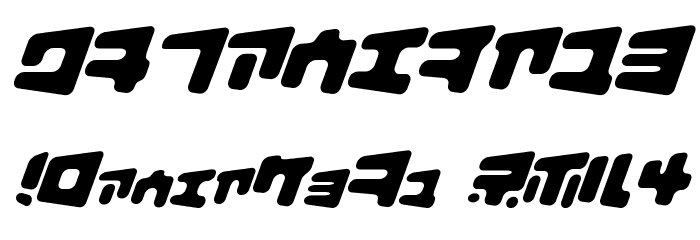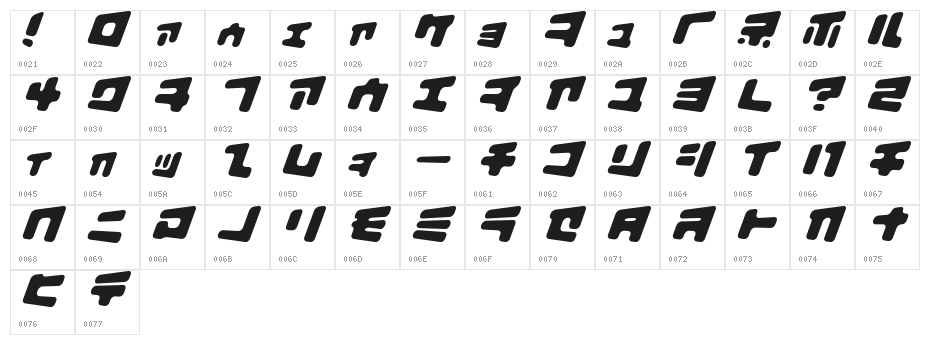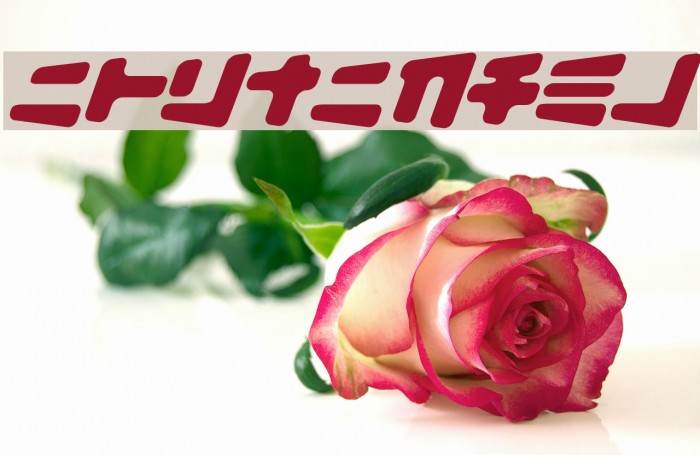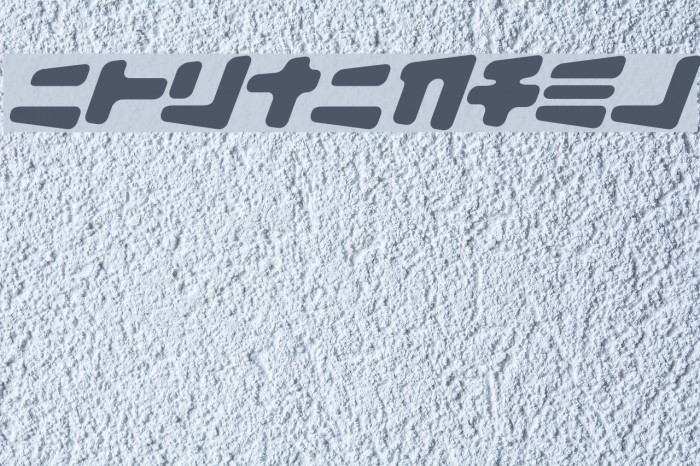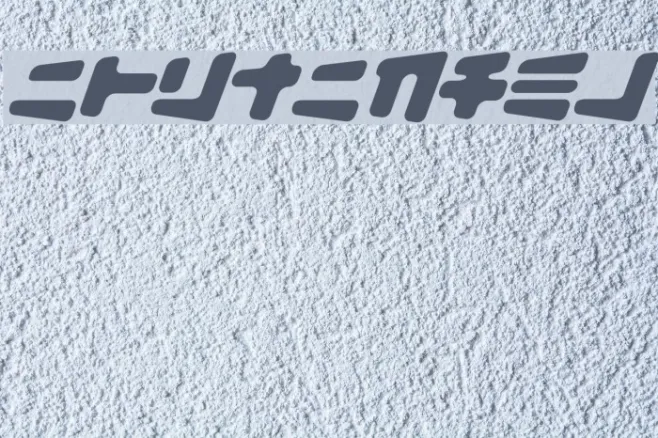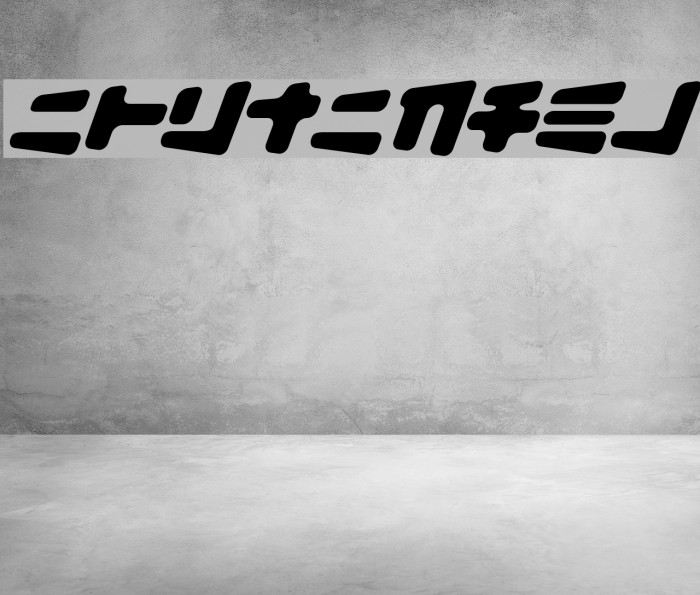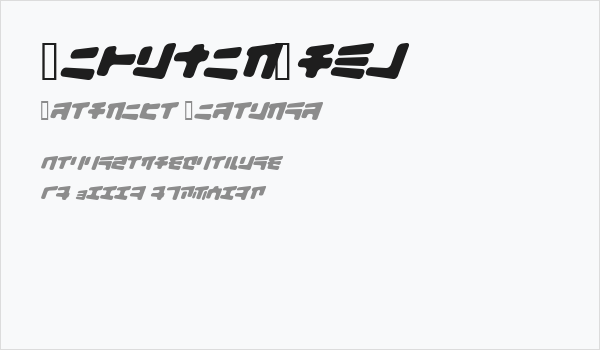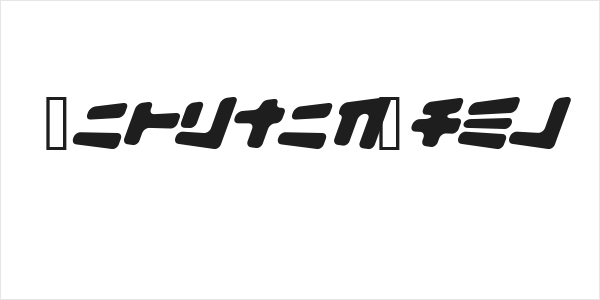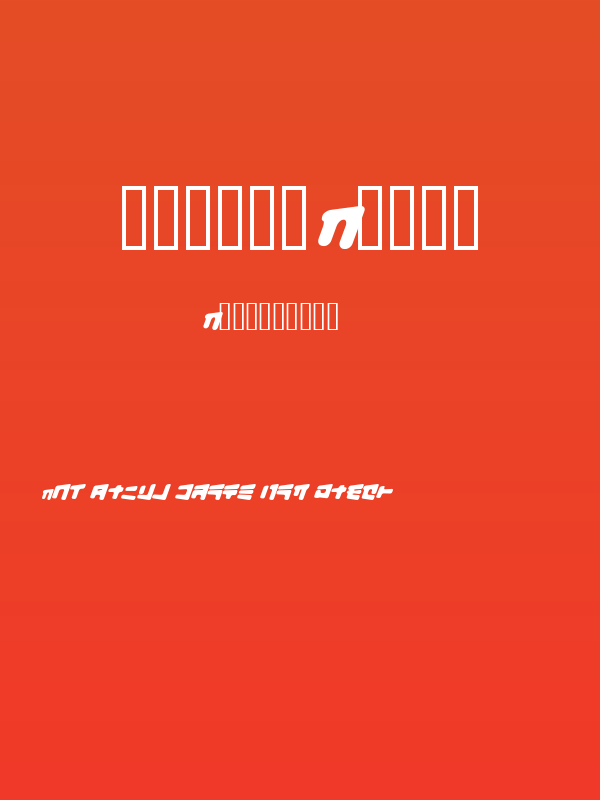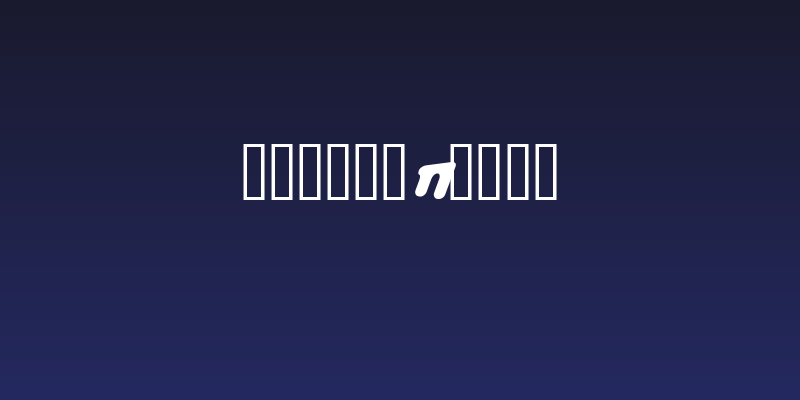
BiscuitBank Font
BiscuitBank Description
This font features a playful and bold design with rounded, thick strokes that give it a bubbly appearance. The characters are slightly tilted, adding a dynamic and informal feel. The overall look is reminiscent of retro or vintage styles, with a modern twist. The letters are well-spaced, ensuring readability while maintaining a cohesive look. This font is ideal for projects that require a fun and engaging aesthetic, such as children's books, playful branding, or creative posters.
| Overall Style | Playful, Retro, Modern |
| Proposed Projects | Ideal for children's books, playful branding, creative posters, and retro-themed designs. |